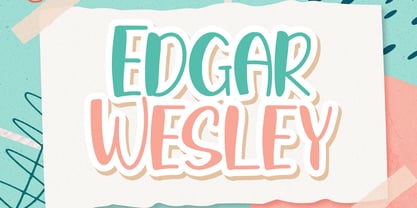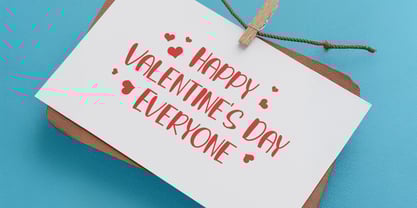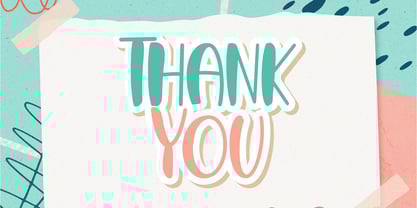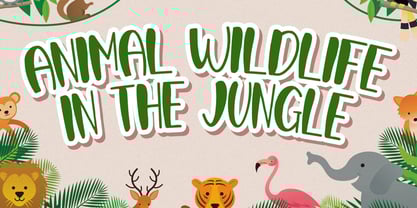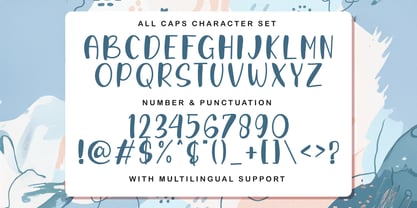
Edgar Wesley
by Stringlabs Creative Studio
The Edgar Wesley Font Family was designed by Virgiawan Listanto and published by Stringlabs Creative Studio. Edgar Wesley contains 1 styles.
Edgar Wesley is a fun and quirky display font bursting with personality! With its bouncy shapes, friendly curves, and playful attitude, this font is perfect for designs that want to feel lively, bold, and full of charm.
Designers: Virgiawan Listanto
Publisher: Stringlabs Creative Studio
Foundry: Stringlabs Creative Studio
Design Owner: Stringlabs Creative Studio